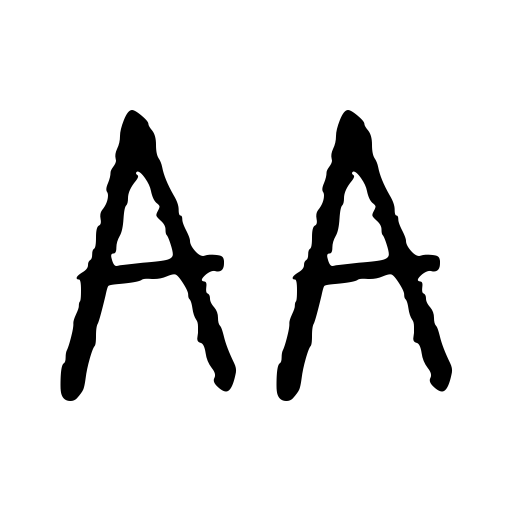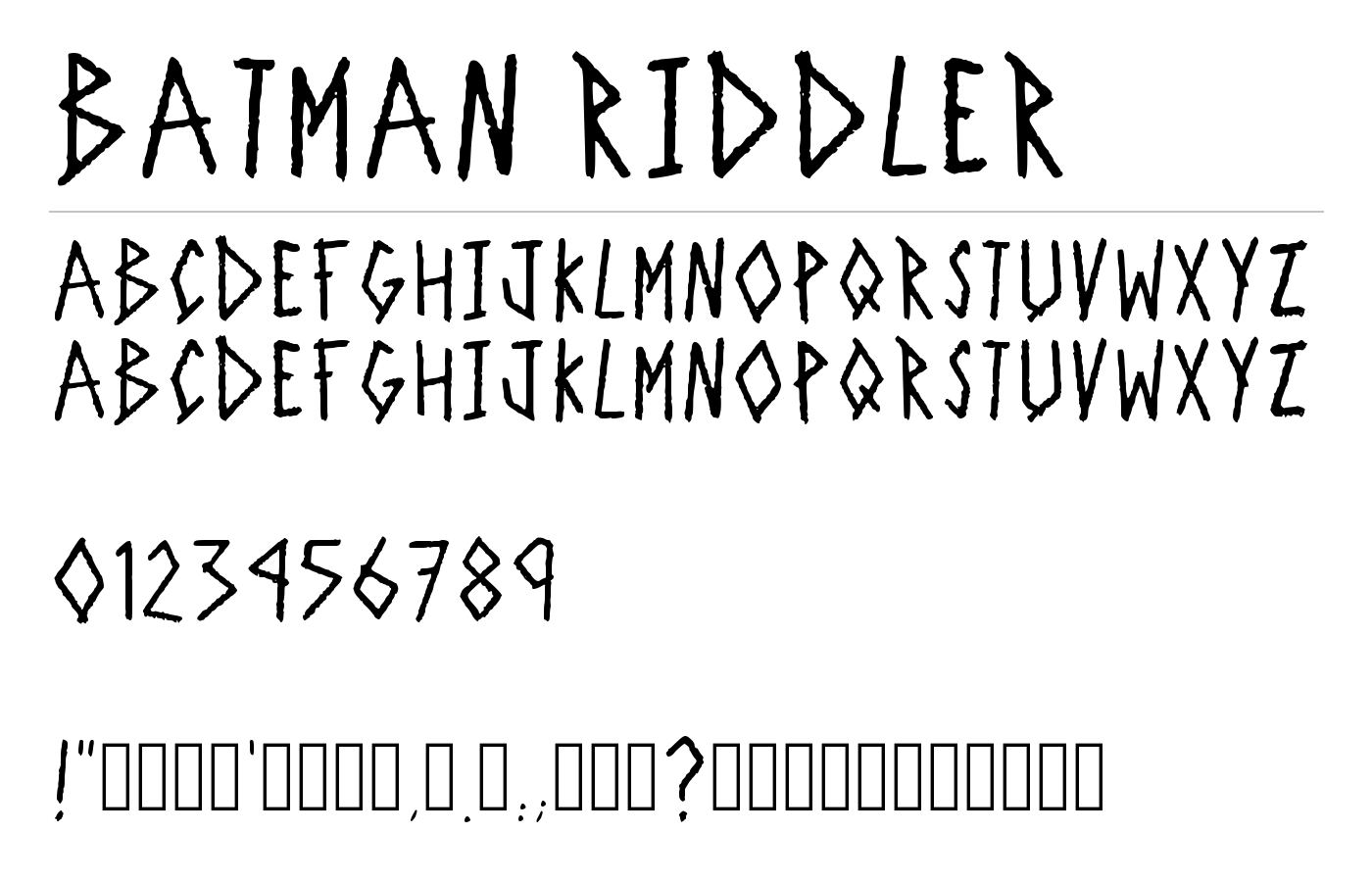
Batman Riddler Font is a distinctive handwritten sans serif typeface with a playful, eerie charm that captures a mysterious, comic book vibe. Its uneven, jagged strokes and narrow letterforms create a slightly rough and quirky appearance, making it ideal for designs that want to evoke intrigue or a villainous, adventurous mood. This font works best for headlines, posters, and themed branding where a striking and unique personality is desired.
Batman Riddler Font